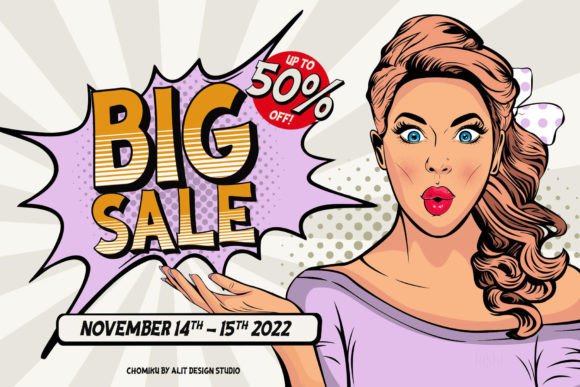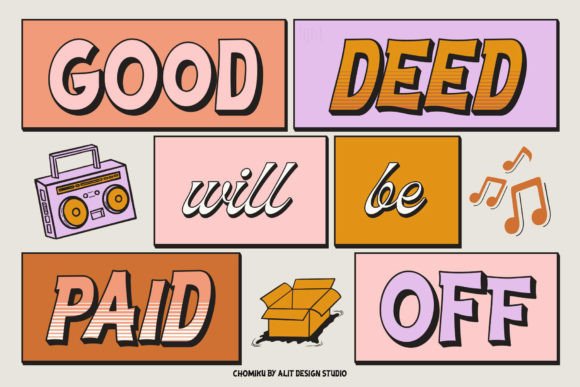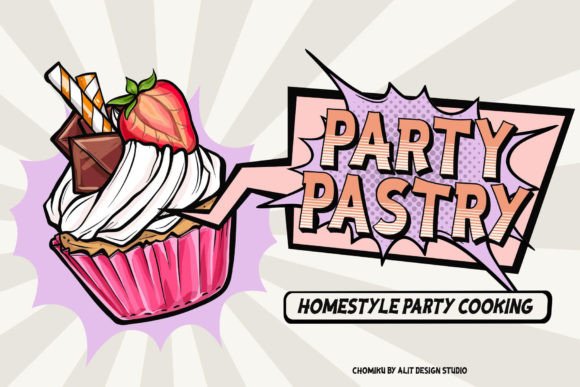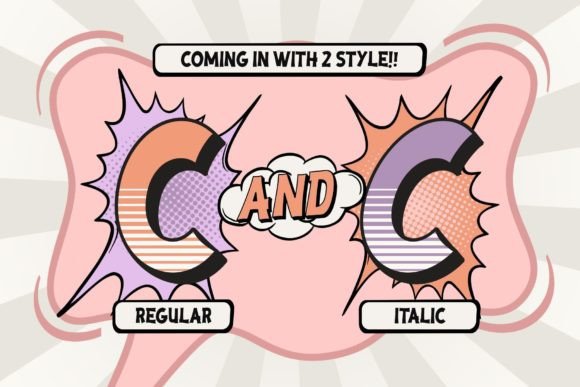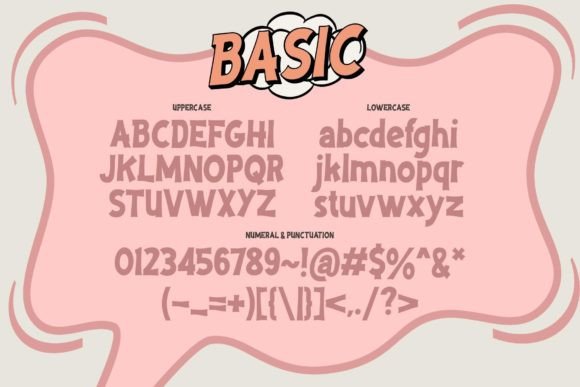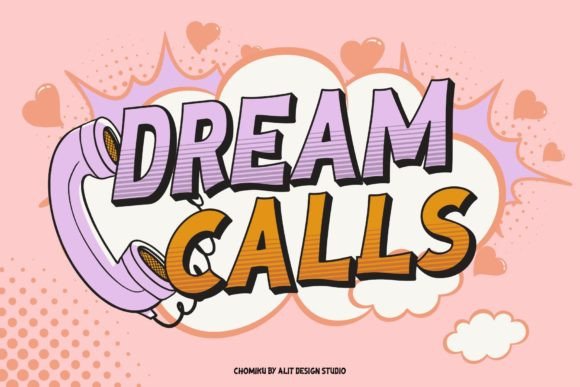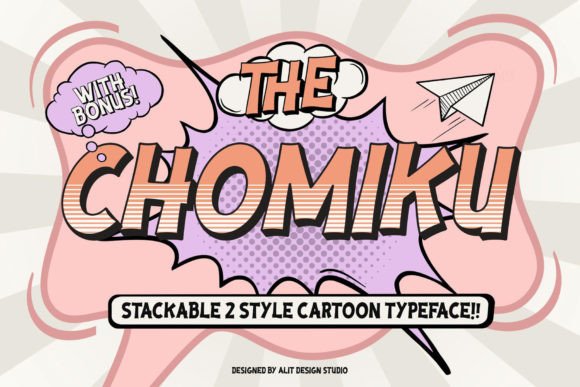
Introducing Chomiku Font: The Ultimate Playful Display Font
Are you tired of using the same old boring fonts in your designs? Look no further! Chomiku Font is here to shake things up with its funky and colorful display font that embodies playfulness and authenticity. This chunky lettered font is perfect for any project that requires a fun and playful vibe, and it’s sure to make your designs come alive!
The Perfect Font for Playful Designs
Chomiku Font is designed to add a touch of whimsy and fun to your designs. Its bold and colorful letters are perfect for making a statement, and its playful vibe is sure to capture the attention of your audience. Whether you’re working on a logo, a poster, a social media graphic, or a craft project, Chomiku Font is the perfect choice.
Key Features of Chomiku Font
- Chunky Lettered Font: Chomiku Font features chunky, bold letters that are perfect for making a statement. The font is designed to be eye-catching and playful, making it perfect for designs that need to stand out.
- Playful Vibe: Chomiku Font embodies a playful and fun vibe that’s perfect for designs that need to capture the attention of your audience. The font is designed to be energetic and lively, making it perfect for projects that require a youthful and vibrant feel.
- Colorful: Chomiku Font is a colorful display font that’s perfect for designs that need a pop of color. The font features a range of colors that can be used to add visual interest to your designs.
Why Choose Chomiku Font?
There are many reasons why Chomiku Font is the perfect choice for designers and crafters. Here are just a few:
- Unique and Eye-Catching: Chomiku Font is a unique and eye-catching font that’s sure to make your designs stand out. The font’s bold and colorful letters are perfect for capturing the attention of your audience.
- Versatile: Chomiku Font is a versatile font that can be used in a variety of design projects, from logos and posters to social media graphics and craft projects.
- Fun and Playful: Chomiku Font is a fun and playful font that’s perfect for designs that need to capture a youthful and vibrant feel. The font is designed to be energetic and lively, making it perfect for projects that require a playful vibe.
How to Use Chomiku Font in Your Designs
Using Chomiku Font in your designs is easy. Here are a few tips to get you started:
- Pair it with Other Fonts: Chomiku Font can be paired with other fonts to create a unique and interesting design. Try pairing it with a sans-serif font for a bold and playful look.
- Use it for Headings: Chomiku Font is perfect for headings and titles. Use it to add a pop of color and a playful vibe to your designs.
- Experiment with Colors: Chomiku Font features a range of colors that can be used to add visual interest to your designs. Experiment with different colors to find the perfect combination for your project.
Chomiku Font is a funky and colorful display font that’s perfect for designs that need a fun and playful vibe. With its PUA encoding, chunky lettered font, and playful vibe, Chomiku Font is the perfect choice for designers and crafters. Whether you’re working on a logo, a poster, a social media graphic, or a craft project, Chomiku Font is sure to make your designs come alive!